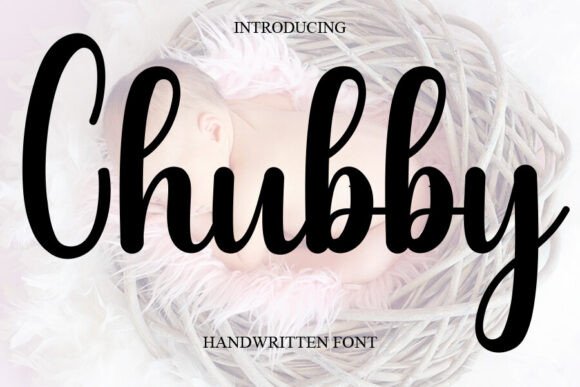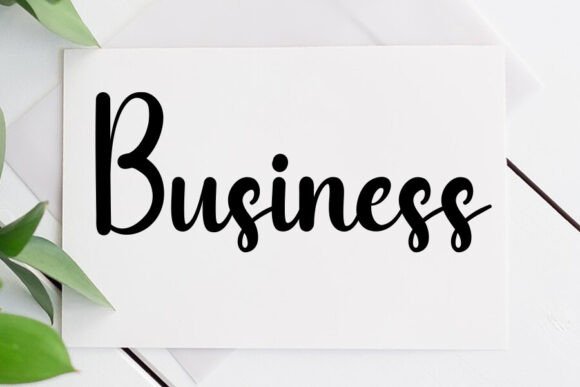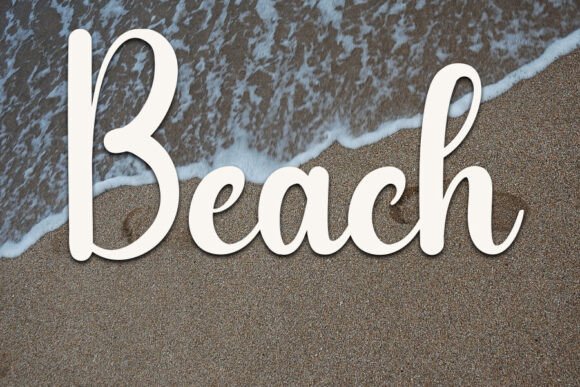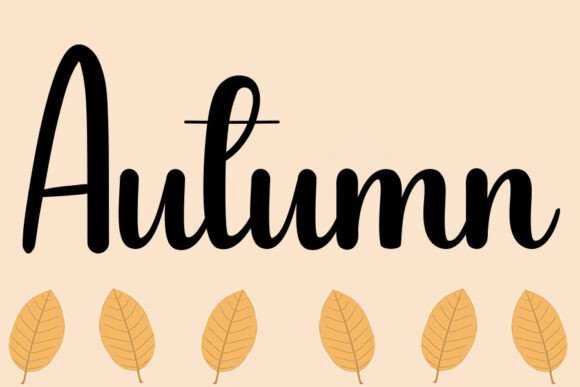
Chubby Font: A Cute Handwritten Script for Cricut & DIY Projects
About the Chubby Font
Welcome to the world of Chubby Font, a typeface that will inspire your next great project. Chubby is a sweet and cursive handwritten font. This gentle font will look gorgeous on a variety of design ideas. It will add a joyful and romantic touch to each of your projects! Perfectly fit for branding, logo, wedding things, greeting cards, fashion, lookbook, marketing promotion, and any time you want your design to look fancy and elegant but still casual.
Chubby Font Usage Examples
Chubby Font Example